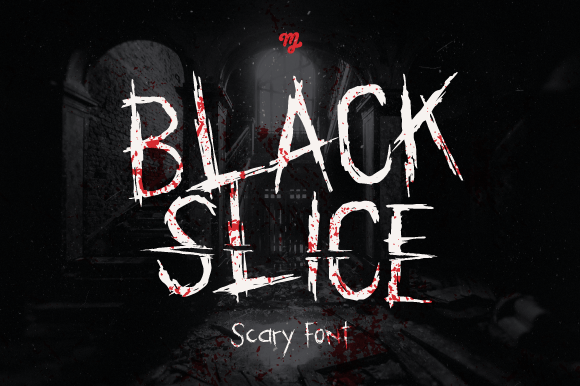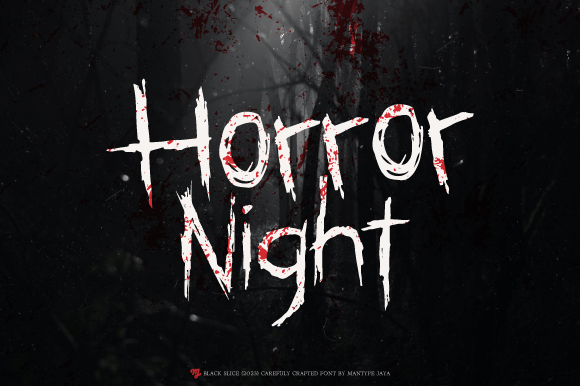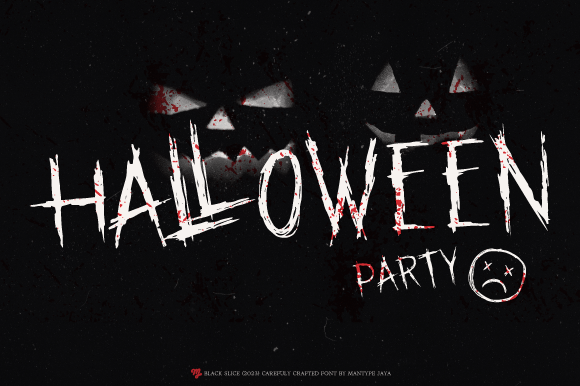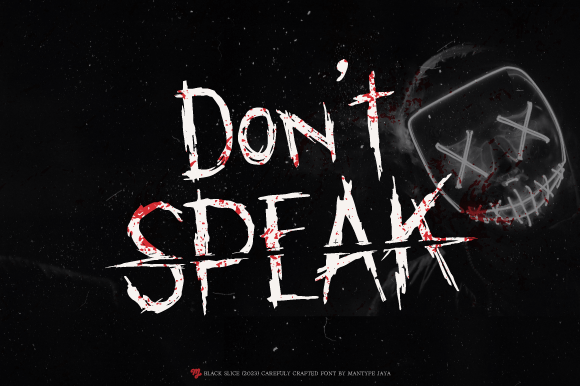
Black Slice Font: Creepy Display Font for Horror Designs
About the Black Slice Font
Get ready to be inspired by Black Slice Font, a fresh and dynamic typeface for modern creators. Unleash your inner horror with our Black Slice font. Black Slice is a font inspired by movies and mystery stories. Made to resemble a sharp object scratch on a hard surface. Perfect for creating a creepy atmosphere in your projects. This font is PUA encoded which means you can access all of the scary glyphs with ease!
Black Slice excels in short, impactful applications such as headlines, posters, and logotypes for horror-themed projects, Halloween events, or suspenseful book covers. Its unique texture works best in large sizes where the individual glyph details are clearly visible. Avoid using it for body text or lengthy paragraphs; its aggressive texture would hinder readability.
The font’s core personality is bold and dramatic, conveying a sense of mystery and danger. Consequently, it pairs well with clean, sans-serif fonts like Roboto or Open Sans for contrast and improved readability in supporting text. For a more sophisticated feel, consider pairing it with a classic serif like Garamond or a slightly more modern serif such as Merriweather.
Pairing Black Slice with a script font would be less effective unless the script itself also carries a dark or gothic aesthetic. Overly playful or overly delicate fonts would clash significantly with its sharp, menacing character.